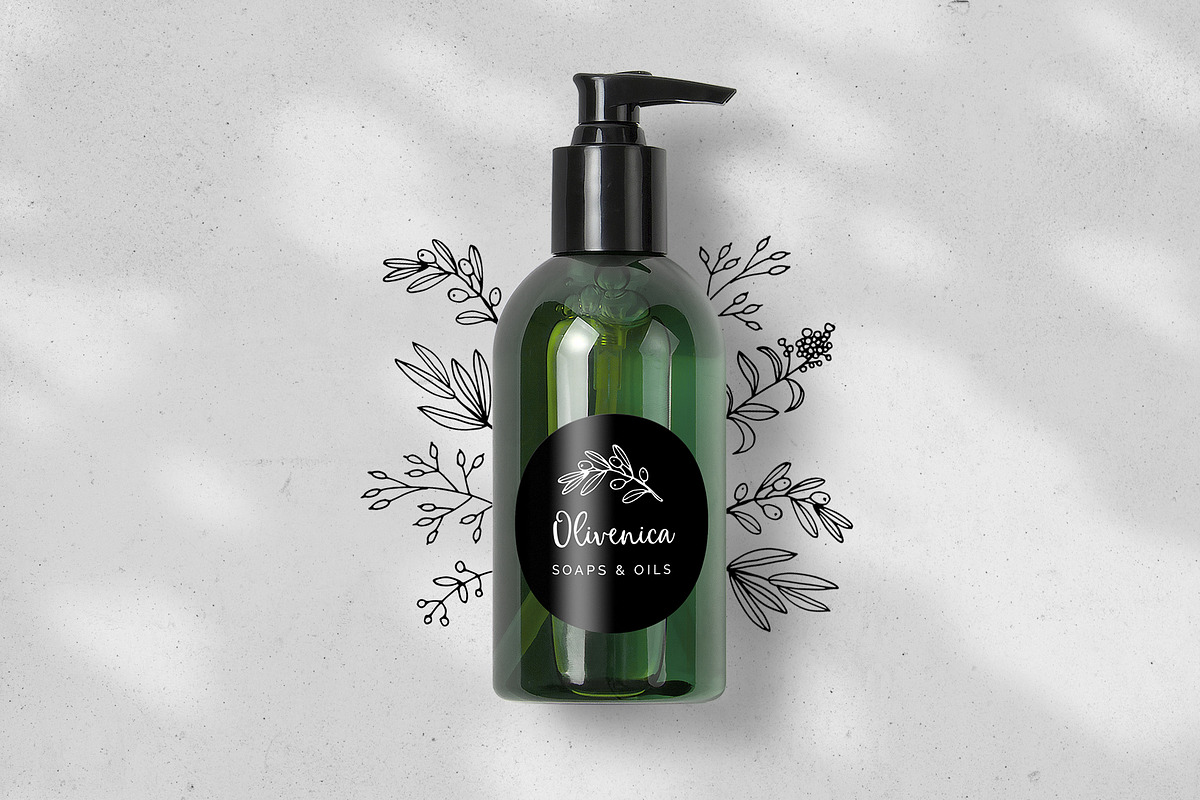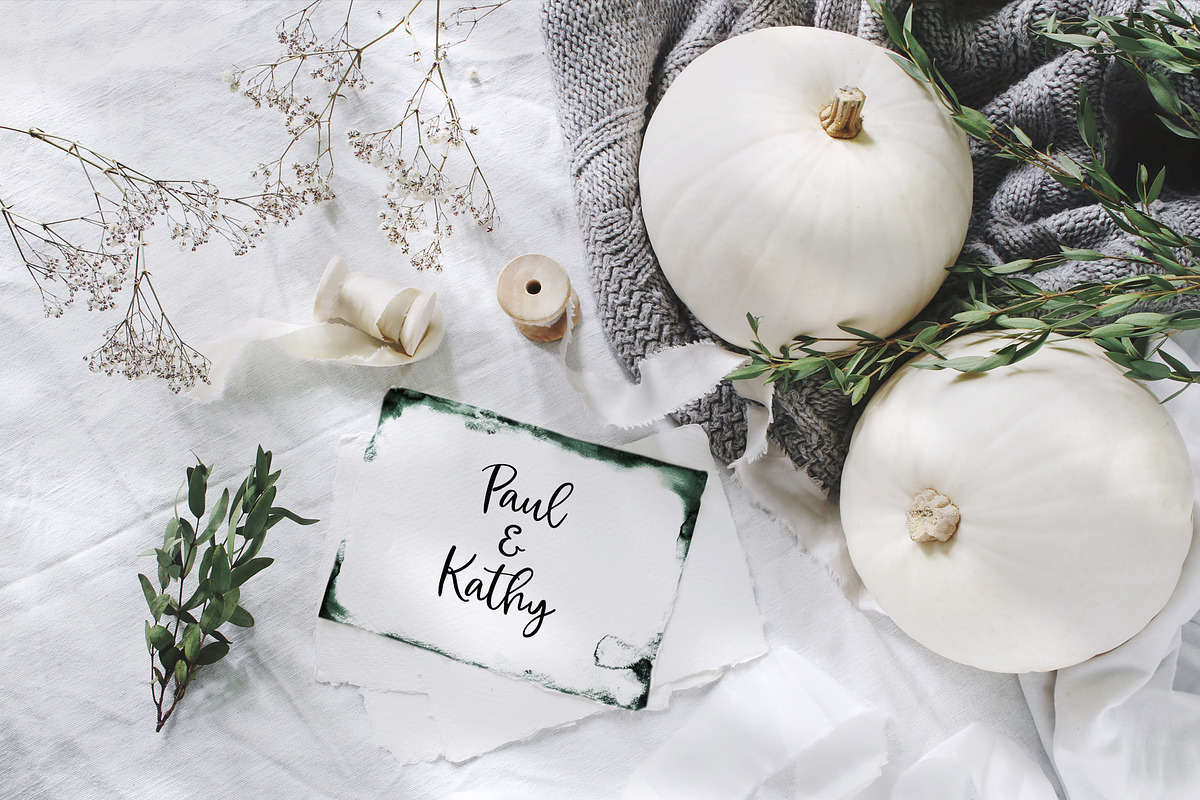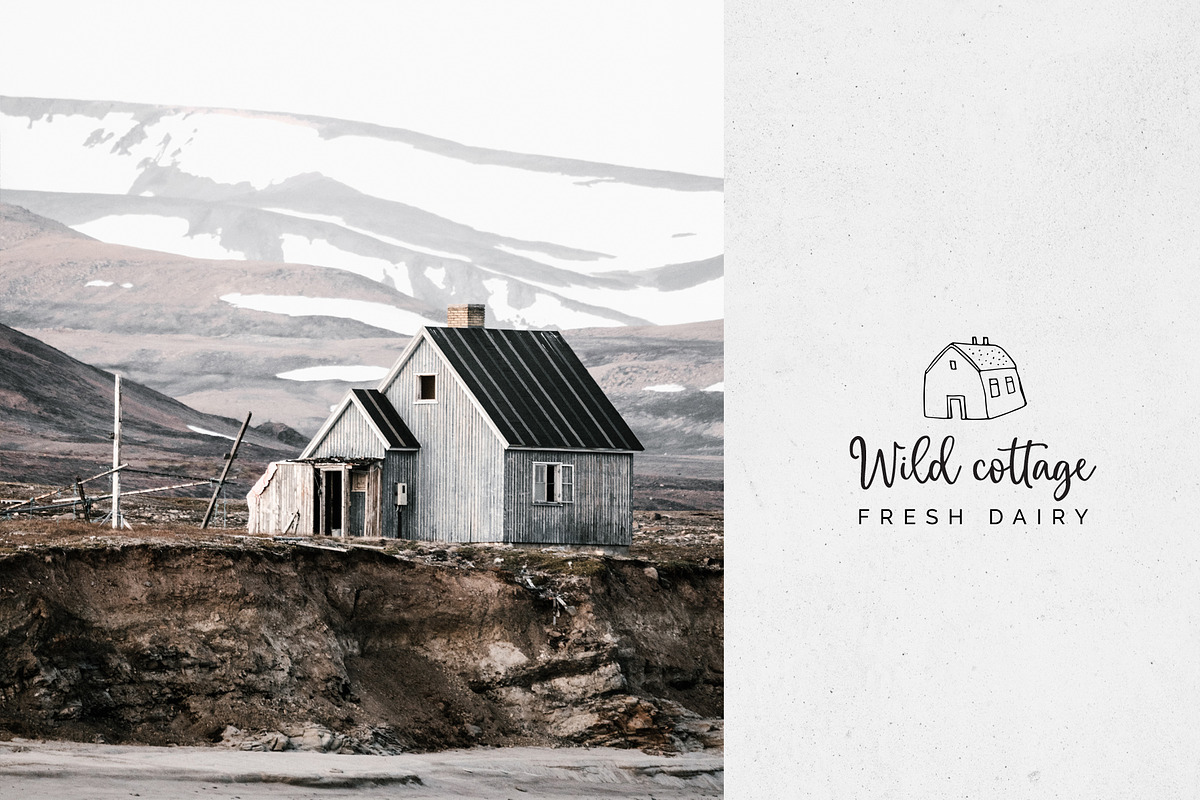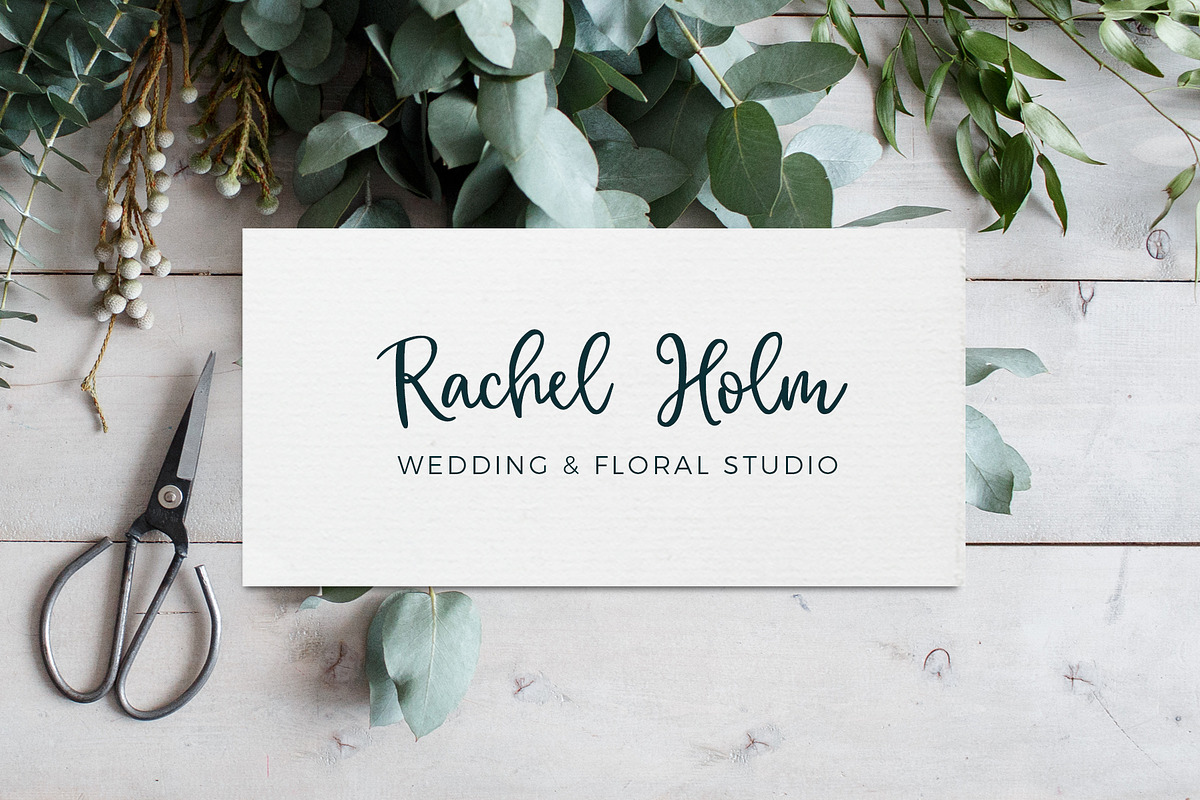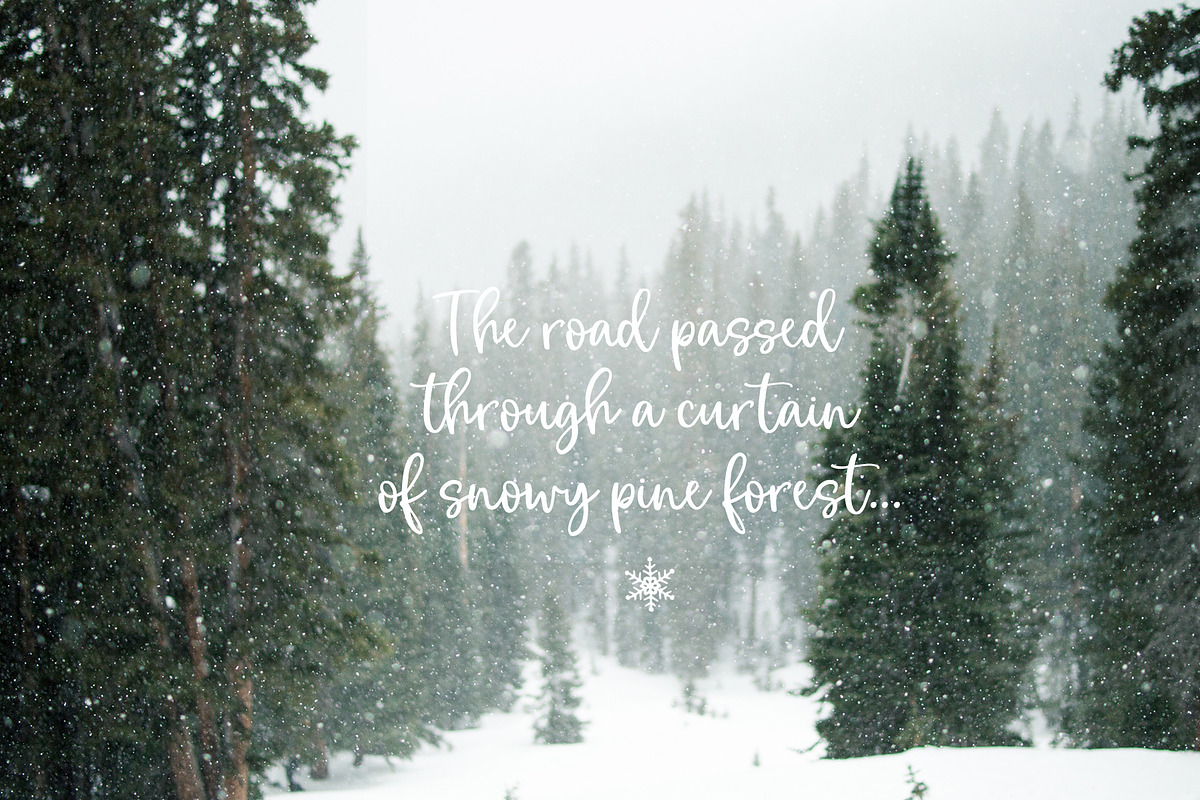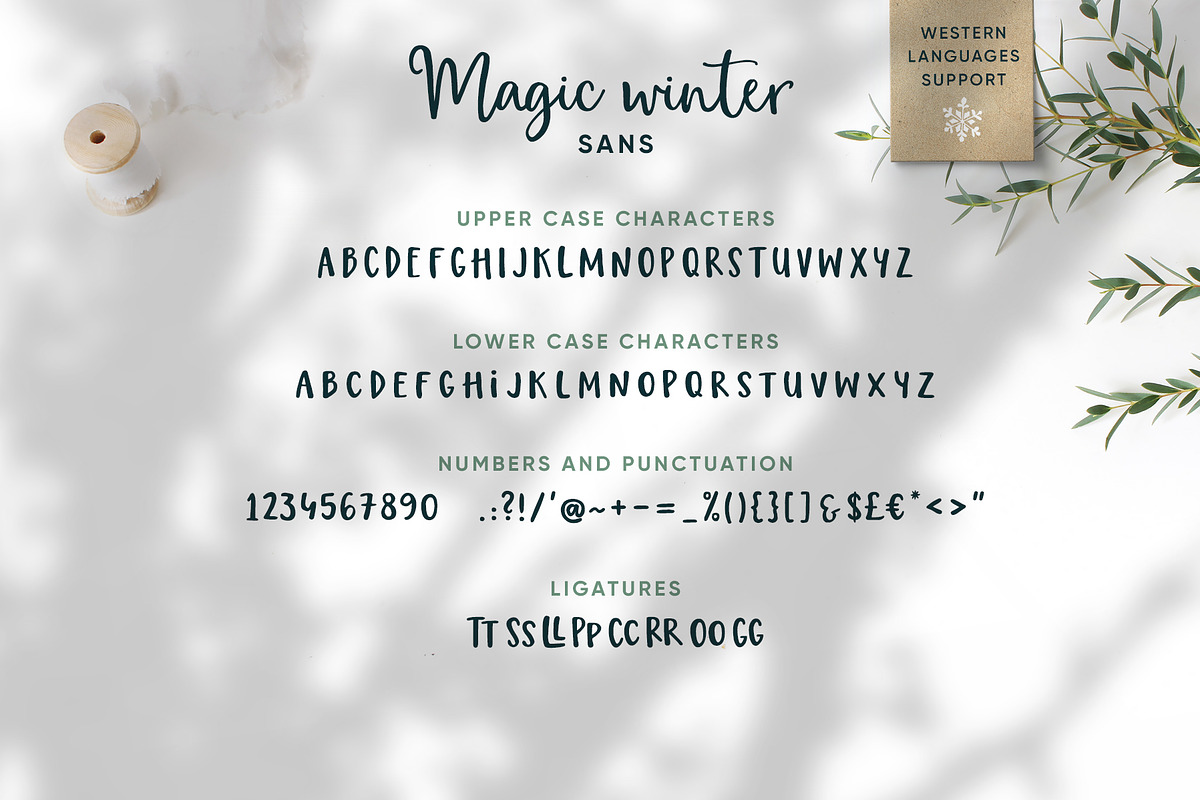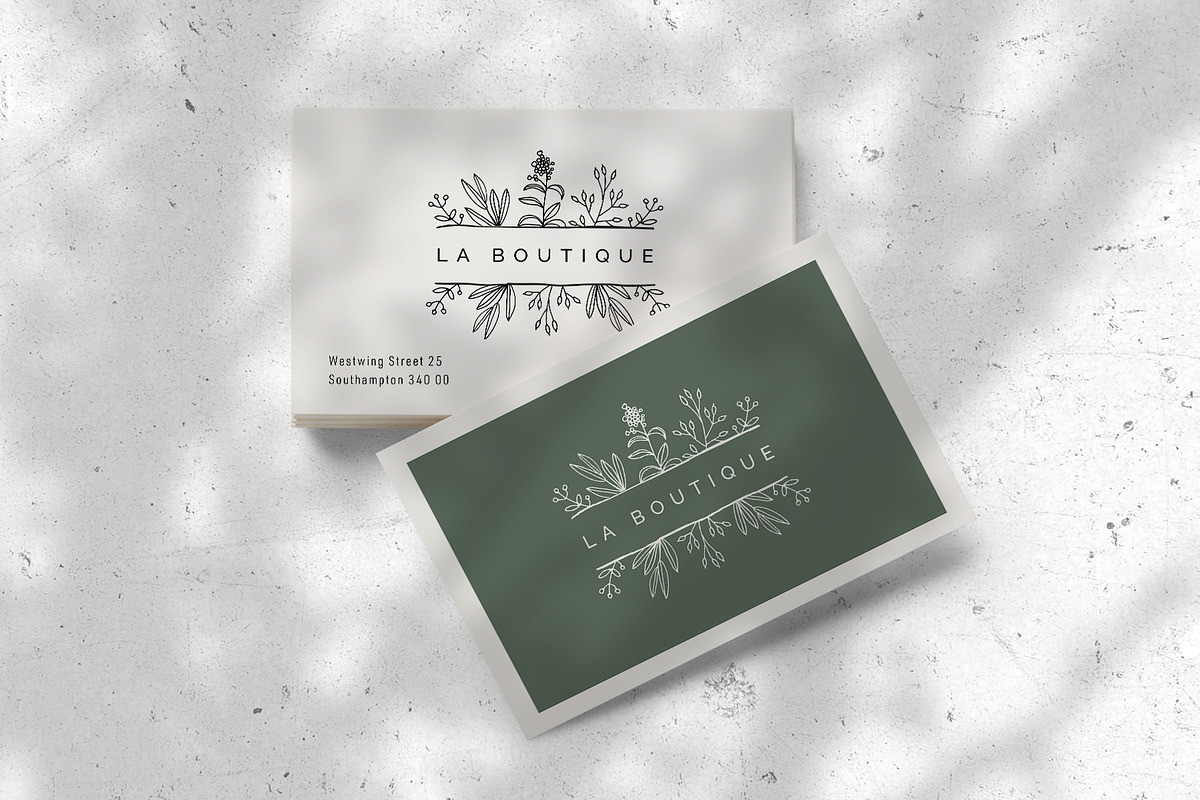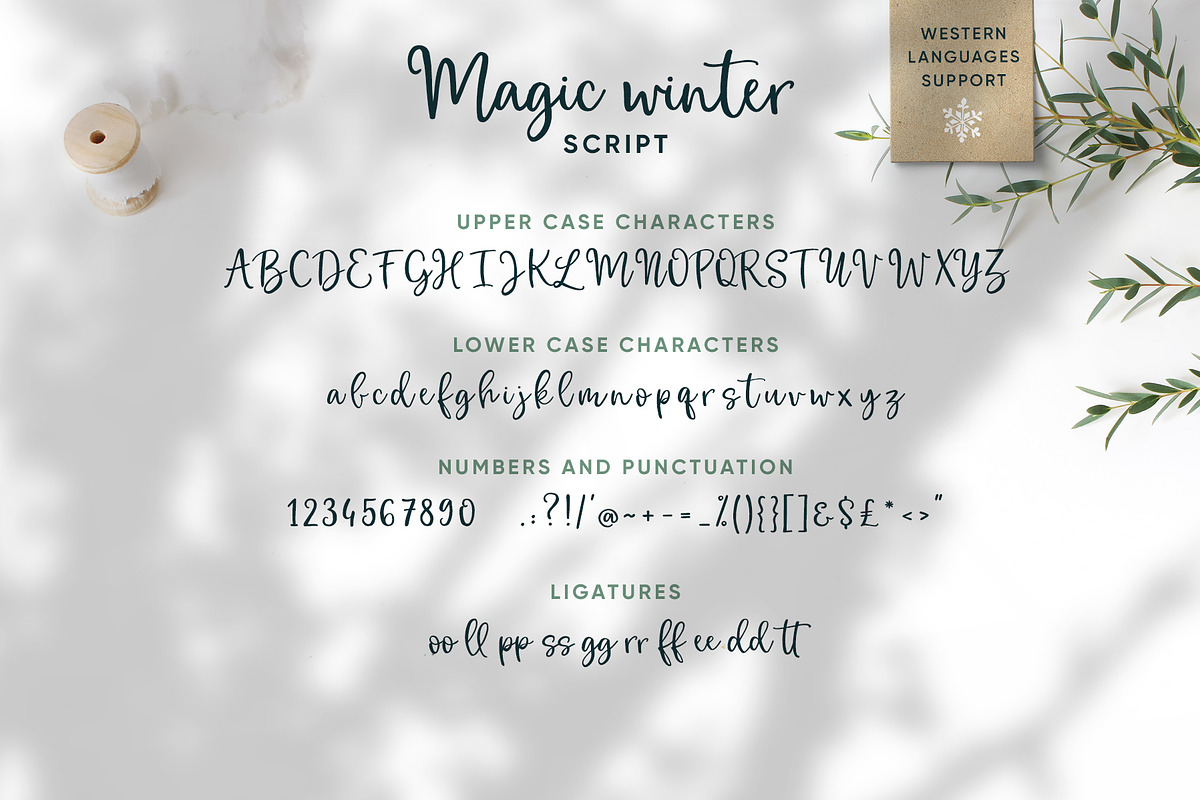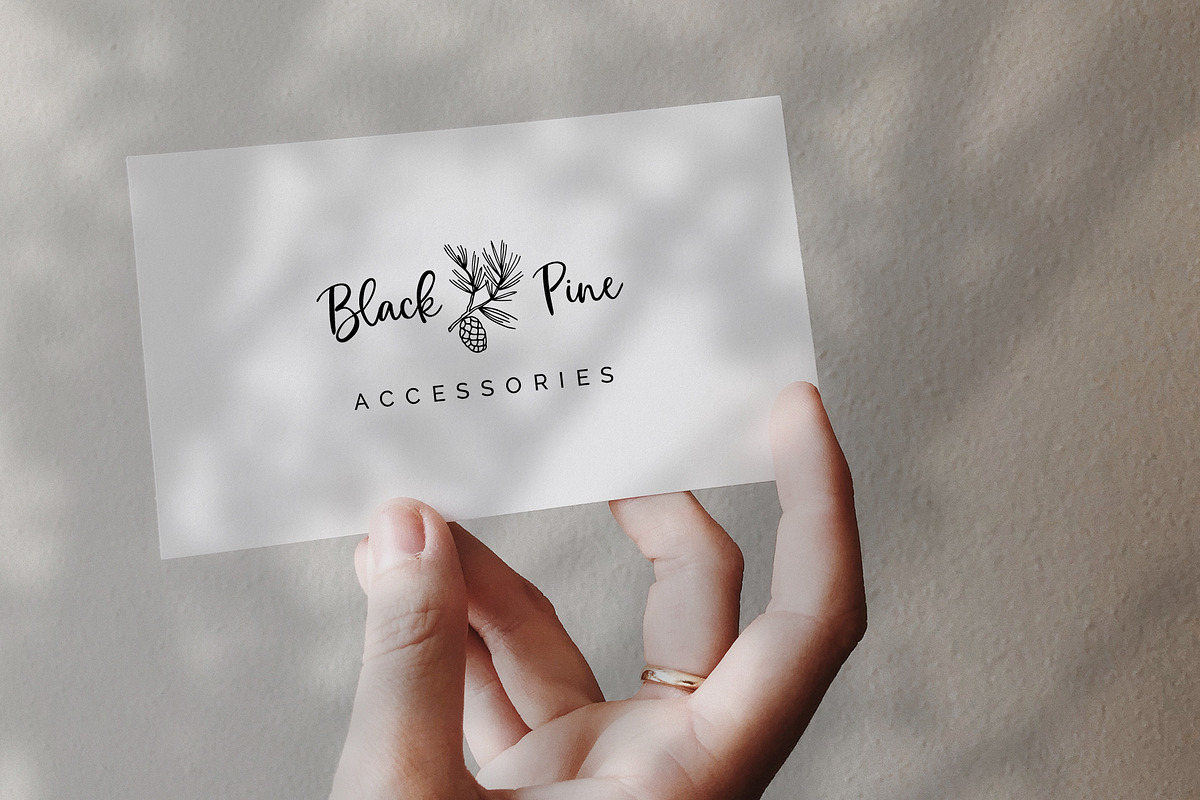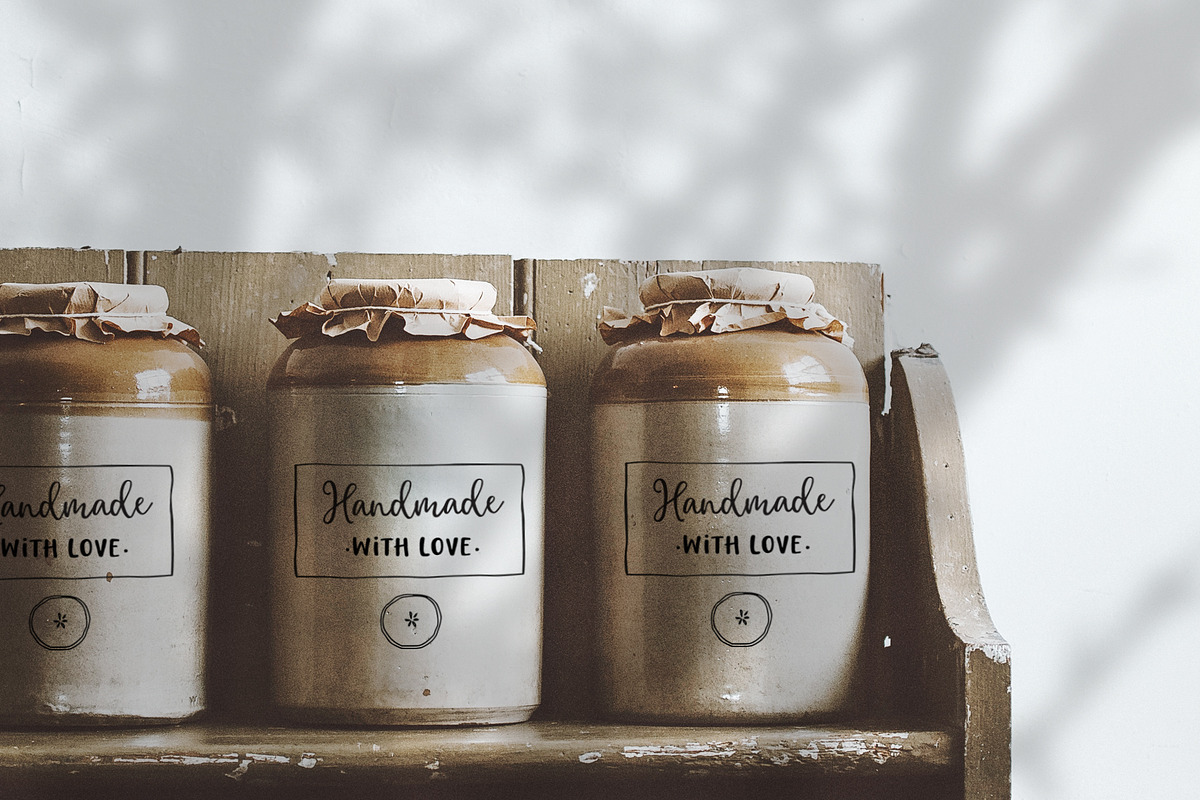
Magic Winter script font duo & logos
Let me introduce the Magic winter collection - a cute script and sans font duo with a bunch of winter inspired vector illustrations and pre-designed logos and greetings.
The set contain 128 BONUS elements.
98 Christmas doodles – just combine the graphic objects, that you like, with your text - the possibilities and variations are endless or you can use the fully editable 18 pre-made editable logo templates and 12 Christmas wishes, overlays. With Magic winter pack you can create your own logo, Christmas and New Year greeting cards, wedding invitations or decorate your gifts, crafts or website in a minute!